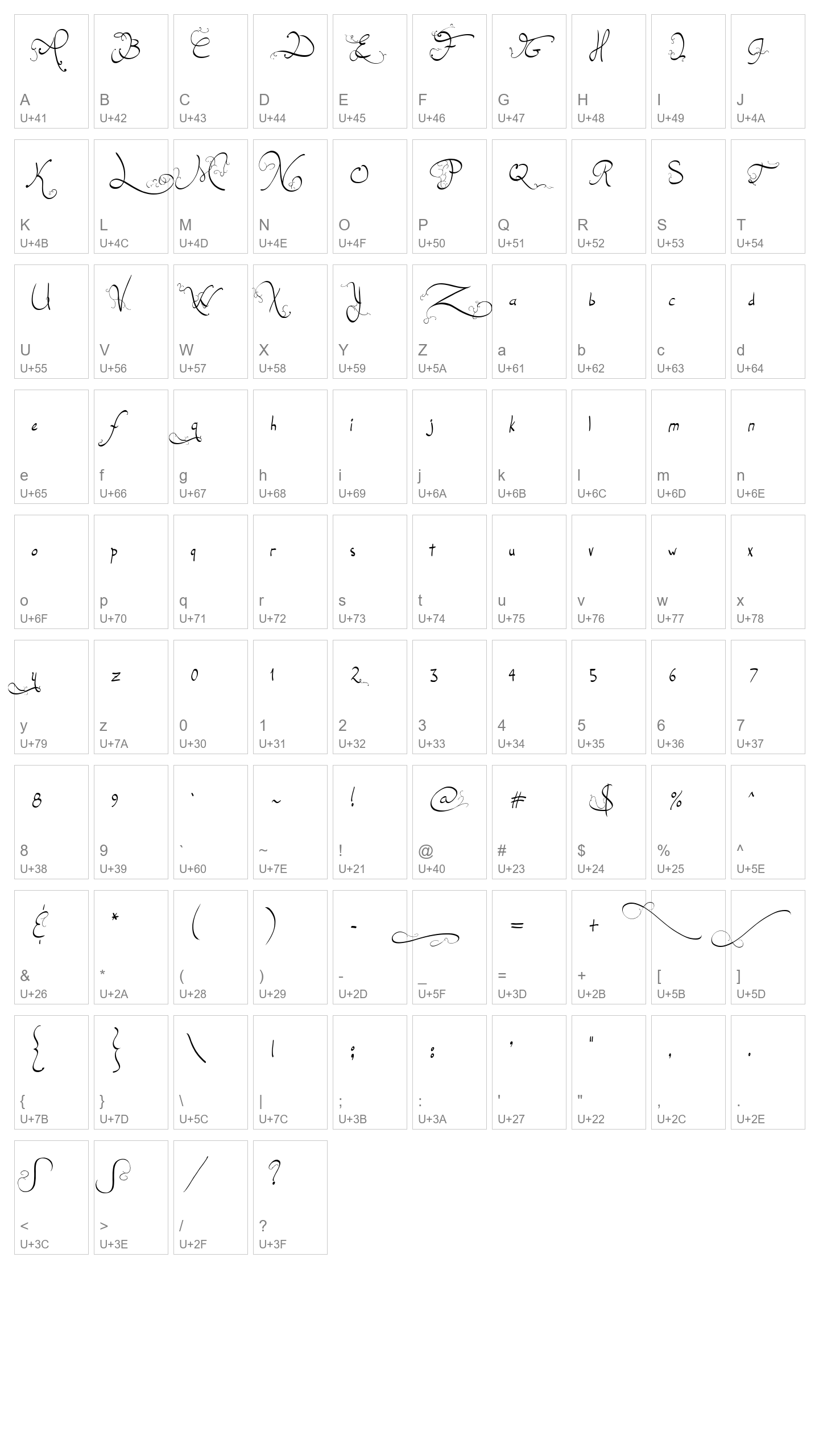
Jellyka Endless Voyage
Author: Jellyka Nerevan
There is a little mark on the underscore ( _ ) that will show you where it really is.
Il y a une petite marque sur l'underscore ( _ ) qui vous montrera où le caractère est en réalité.